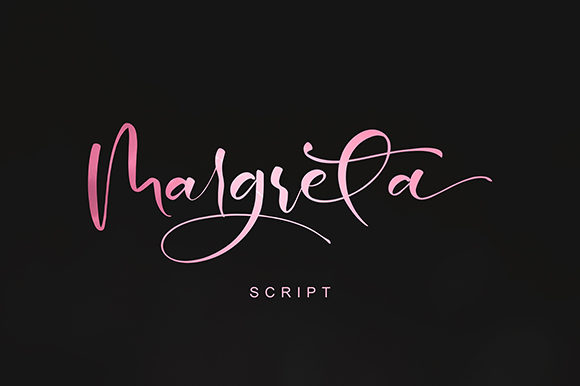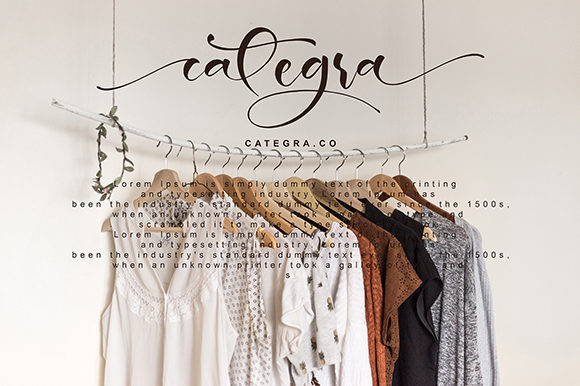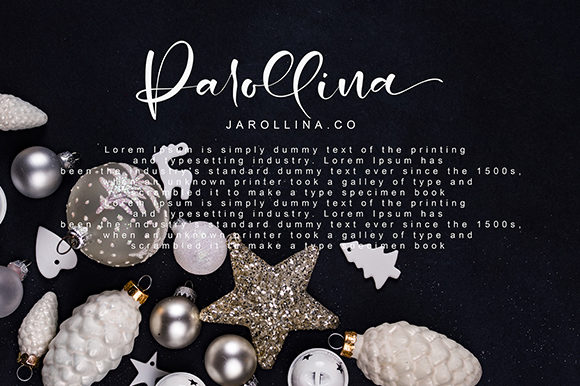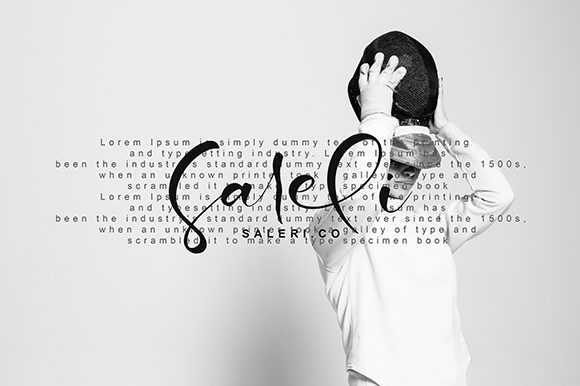
HomeScript FontsMargreta Font Script Fonts Margreta Font FacebookXPinterestWhatsApp Margreta Font Poster 2 Margreta Font Poster 3 Margreta Font Poster 4 About Margreta Font Margreta is a fun and bold handwritten font with a unique feel. Get inspired by its lovely swashes! DOWNLOAD ON CREATIVE FABRICAThis font is sold and delivered by Creative Fabrica. Font Canyon may earn a commission if you buy through this link. People also explored Stelling Spring Font Kindel – Completed Collection Kitten Club Font Benedion Riota Font Aesslhine Font Hexioon Font Willany Font Abelle Font Choco Love Font 338 0 TagsMargreta Font Previous articleDontha Tethaki FontNext articleBelittong Font LEAVE A REPLY Cancel reply Comment: Please enter your comment! Name:* Please enter your name here Email:* You have entered an incorrect email address! Please enter your email address here Website: Save my name, email, and website in this browser for the next time I comment. Personal Use Free Propaniac Personal Use Free Read more about this font Comic Caps Personal Use Free Read more about this font Alnair Star Personal Use Free Read more about this font Summer Pisces Personal Use Free Read more about this font BLOG How to Install and Use Fonts on Windows, macOS, and Web Projects How to Install and Use Fonts on Windows, macOS, and Web Projects Fonts are a crucial part of design and branding. Whether you’re designing a... Top 7 Google Fonts Alternatives for Faster and Privacy-Friendly Web Design (2025) Transform Your Website: Elevate Your Typography with 7 Best Web Font Generators Free vs Paid Fonts: Why Investing in Premium Fonts Is Worth It